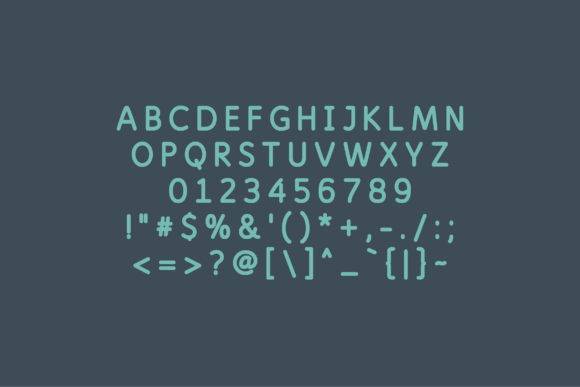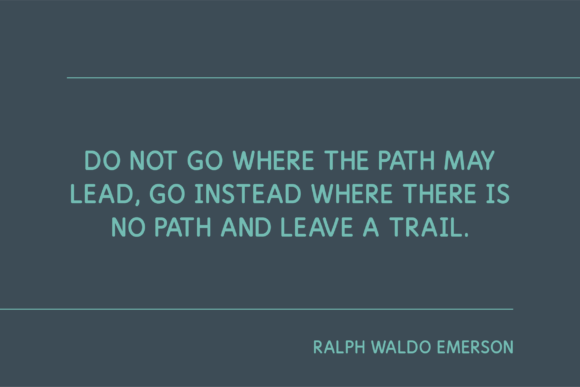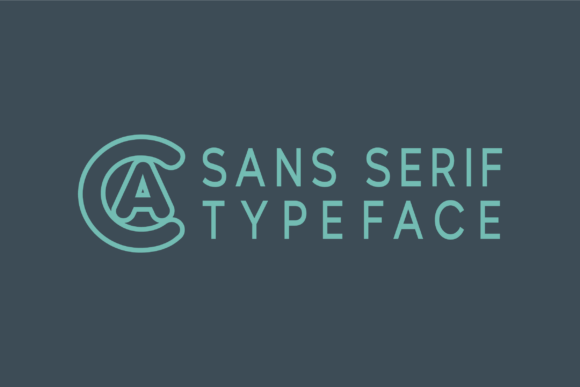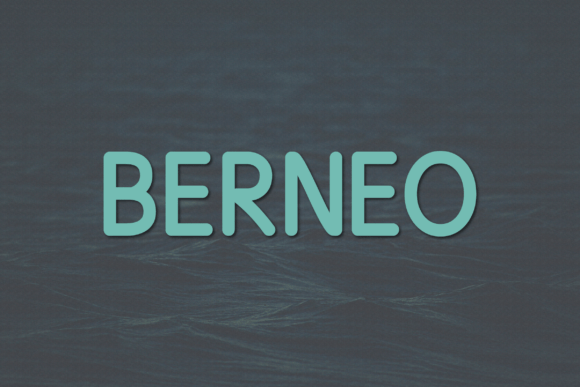
Introducing Berneo Font: Elevate Your Designs with Modern Elegance
In the world of typography, a font can make or break a design. A well-crafted typeface can elevate your project, conveying sophistication, creativity, and professionalism. Berneo Font is a stunning, modern sans serif typeface that is poised to become a go-to choice for designers and crafters alike. With its clean lines, elegant aesthetic, and versatility, Berneo is perfect for a wide range of applications, from logos and weddings to advertisements and print materials.
What is Berneo Font?
Berneo Font is a thoughtfully designed sans serif typeface that boasts a comprehensive character set, including upper characters, numbers 0-9, and a range of punctuation and symbols. This extensive character set ensures that Berneo can be used for a variety of projects, from simple logos to complex editorial designs. The font’s modern, classy aesthetic makes it an excellent choice for designers seeking to create a lasting impression.
Key Features of Berneo Font
• Modern Sans Serif Design: Berneo’s sleek, sans serif design ensures that your text remains clear and legible, even at small sizes.
• Comprehensive Character Set: Upper characters, numbers 0-9, and a range of punctuation and symbols provide everything you need to create professional-looking designs.
• Versatility: Berneo is perfect for a wide range of applications, including logos, weddings, invitations, quotes, advertisements, print materials, and magazines.
• Elegant Aesthetic: Berneo’s modern, classy design makes it an excellent choice for designers seeking to create sophisticated, high-end designs.
Use Cases for Berneo Font
Berneo Font is an extremely versatile typeface, suitable for a wide range of projects. Here are some examples of how you can use Berneo to elevate your designs:
• Logos: Create a lasting impression with a professional, modern logo that showcases your brand’s personality.
• Weddings and Invitations: Add a touch of elegance to your wedding invitations, programs, and other stationery with Berneo’s sophisticated design.
• Advertisements: Grab attention with bold, eye-catching headlines and body copy that showcases your product or service.
• Print Materials: Use Berneo to create stunning brochures, flyers, and posters that showcase your brand’s message.
• Magazines and Editorials: Berneo’s clean lines and elegant aesthetic make it an excellent choice for editorial designs, such as magazine articles and blog posts.
Why Choose Berneo Font?
With so many typefaces available, why choose Berneo Font? Here are just a few reasons why Berneo stands out from the crowd:
• Unique Design: Berneo’s modern, classy aesthetic sets it apart from more traditional typefaces.
• High-Quality Craftsmanship: Berneo is a carefully crafted typeface, designed to provide a premium design experience.
• Versatility: Berneo’s comprehensive character set and elegant design make it suitable for a wide range of projects.
Font Name Berneo Font
Author A Christie
Berneo Font is a stunning, modern sans serif typeface that is poised to become a go-to choice for designers and crafters alike. With its clean lines, elegant aesthetic, and versatility, Berneo is perfect for a wide range of applications. Whether you’re creating a logo, wedding invitation, or print material, Berneo is sure to elevate your design and leave a lasting impression.